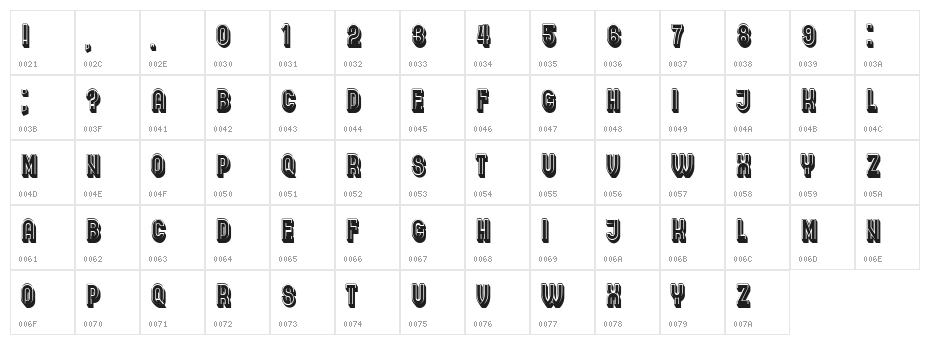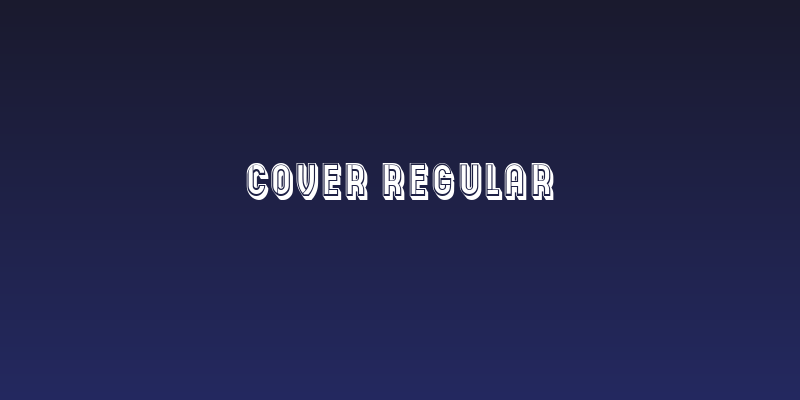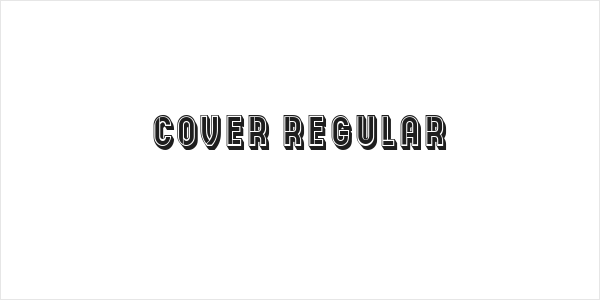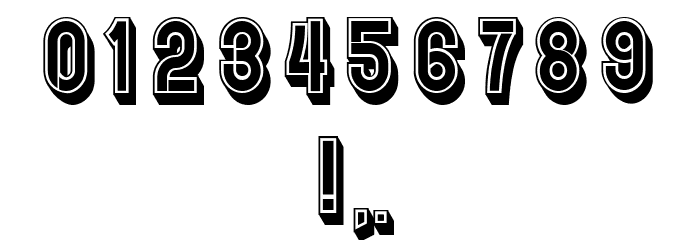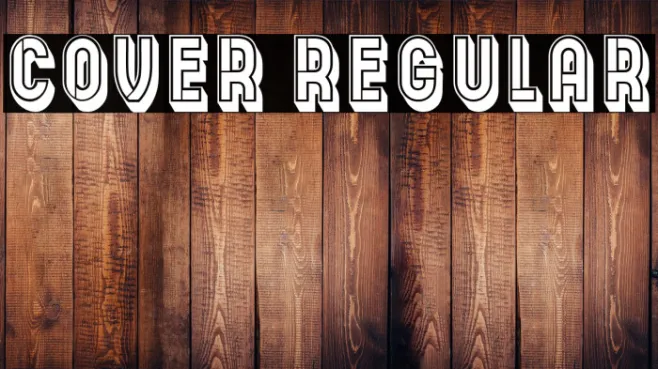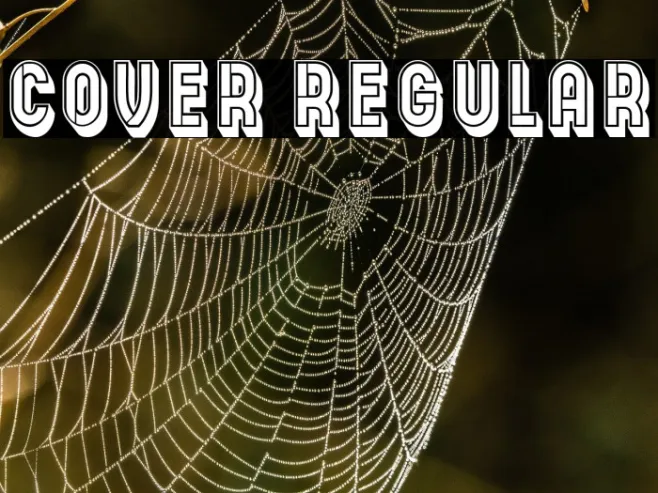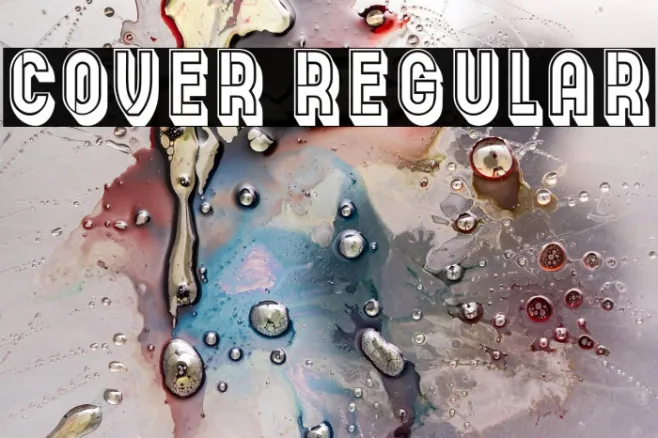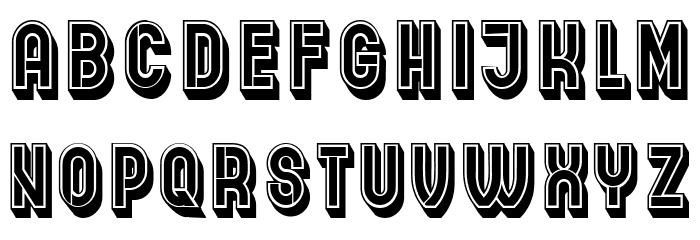
Cover Regular Font
Cover Regular Description
This font features a bold, decorative style with a three-dimensional effect created by its shadowed outline. The characters are uppercase and have a strong, impactful presence, making them ideal for attention-grabbing designs. The geometric shapes and sharp angles give it a modern and edgy feel, while the shadow adds depth and dimension. The numbers and special characters maintain the same bold and structured appearance, ensuring consistency across all elements.
| Proposed Projects | Ideal for poster headlines, logo design, branding materials, and any project requiring a strong visual impact. |